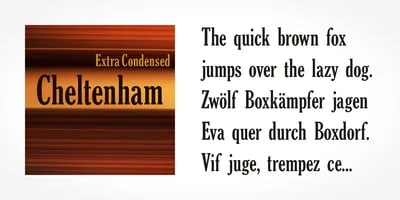
Cheltenham ExtraCondensed Pro Bold Font
Cheltenham ExtraCondensed Pro Bold Font is perfect for newspaper headlines, magazine mastheads, editorial layout designs, urgent announcement graphics, high-impact advertising campaigns, and space-efficient publication materials.
Cheltenham ExtraCondensed Pro Bold Font is exciting because it delivers maximum typographic impact in minimal space, offering publishers a powerful typeface that commands attention while optimizing valuable column inches and layout real estate.
The Cheltenham ExtraCondensed Pro Bold Font family includes publication variations: various weights from Light to Black, extended character sets, multilingual support, and professional typography features optimized for editorial and advertising applications.
Maximize editorial impact with Cheltenham ExtraCondensed Pro Bold Font, a professionally engineered typeface that brings newspaper authority and publishing excellence to your most critical communication design projects. This commanding font excels in creating memorable layouts for news organizations, magazine publishers, advertising agencies, and corporate communications departments that need to deliver maximum message impact within tight space constraints. The expertly crafted letterforms feature condensed proportions and bold weight that ensure exceptional readability while conserving precious layout space across all print and digital publishing applications. Perfect for breaking news graphics, financial report headlines, urgent public announcements, and high-density information displays that need to communicate authority and grab immediate reader attention, this font connects with publishers who understand the critical balance between impact and efficiency. Each character delivers professional journalism standards, making every headline feel like an authoritative news bulletin that demands immediate attention and conveys institutional credibility. Cheltenham ExtraCondensed Pro Bold Font transforms routine communications into powerful editorial statements that establish publishing authority while maximizing the effective use of valuable print and digital real estate.